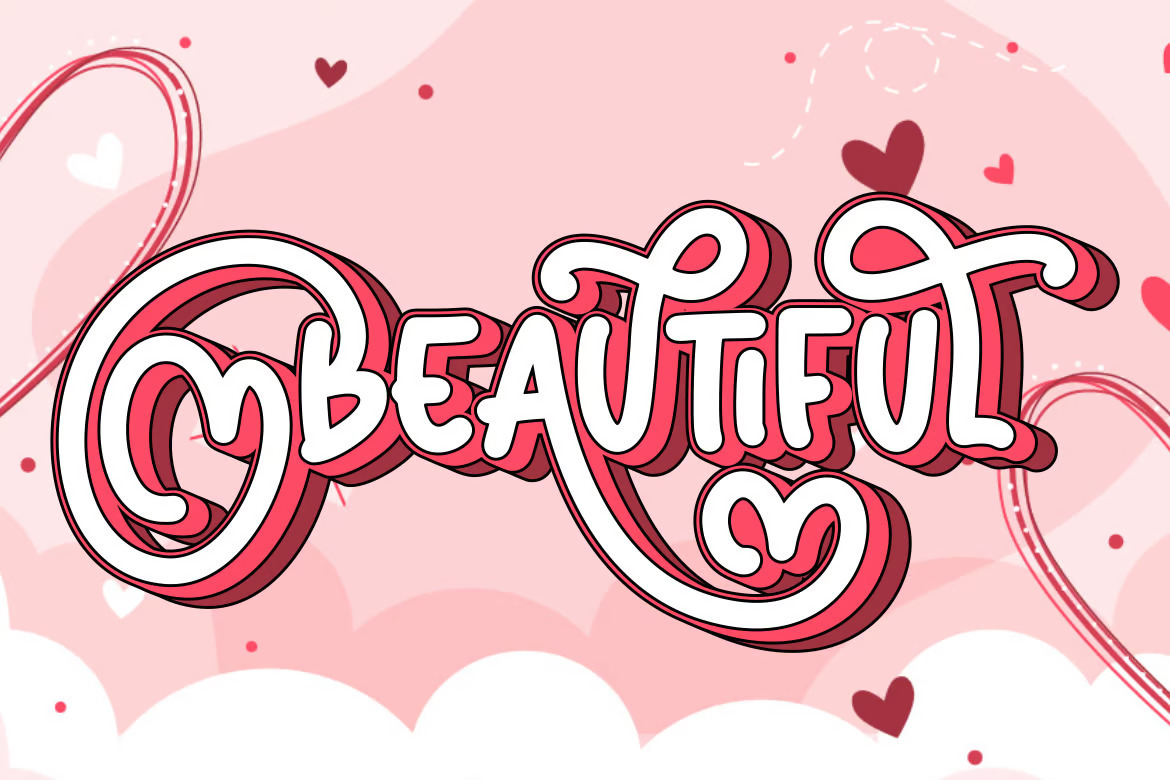
Lovely Valentine Display Font
Introducing, Lovely Valentine a lovely Valentine's display font with an extruded version, suitable for your design project needs, such as; Valentine's themes, Wedding themes, social media posts, quotes, stickers, overlays on images, tagline logos, posters, print needs, website banners, and more.
A set of uppercase and lowercase glyphs
Number, symbol, and punctuation
Alternates and ligatures
Extrude version